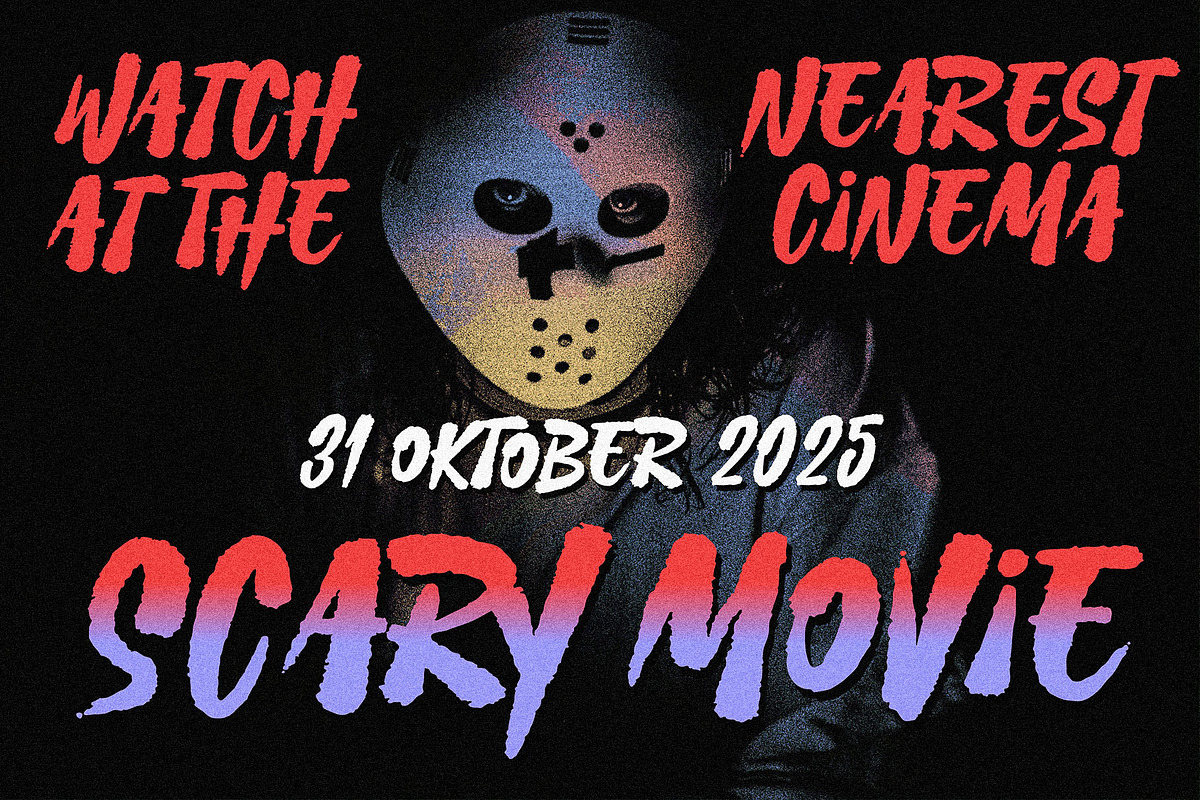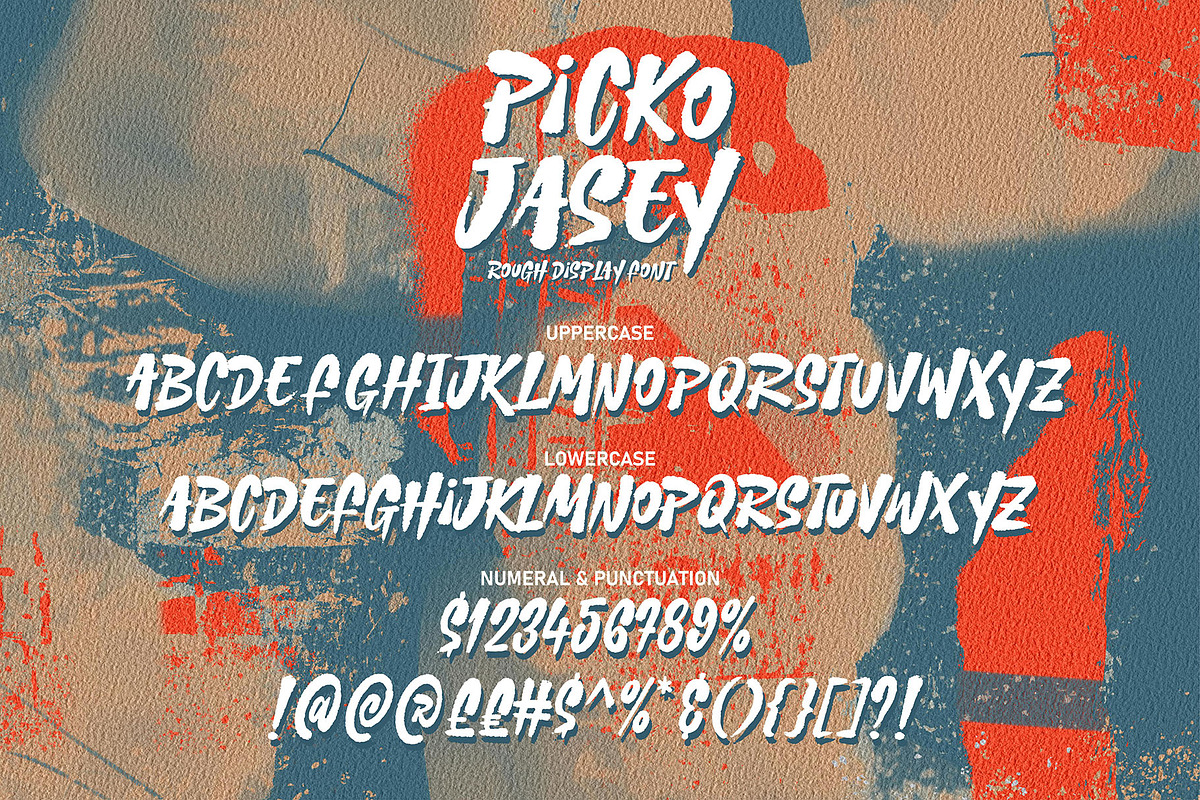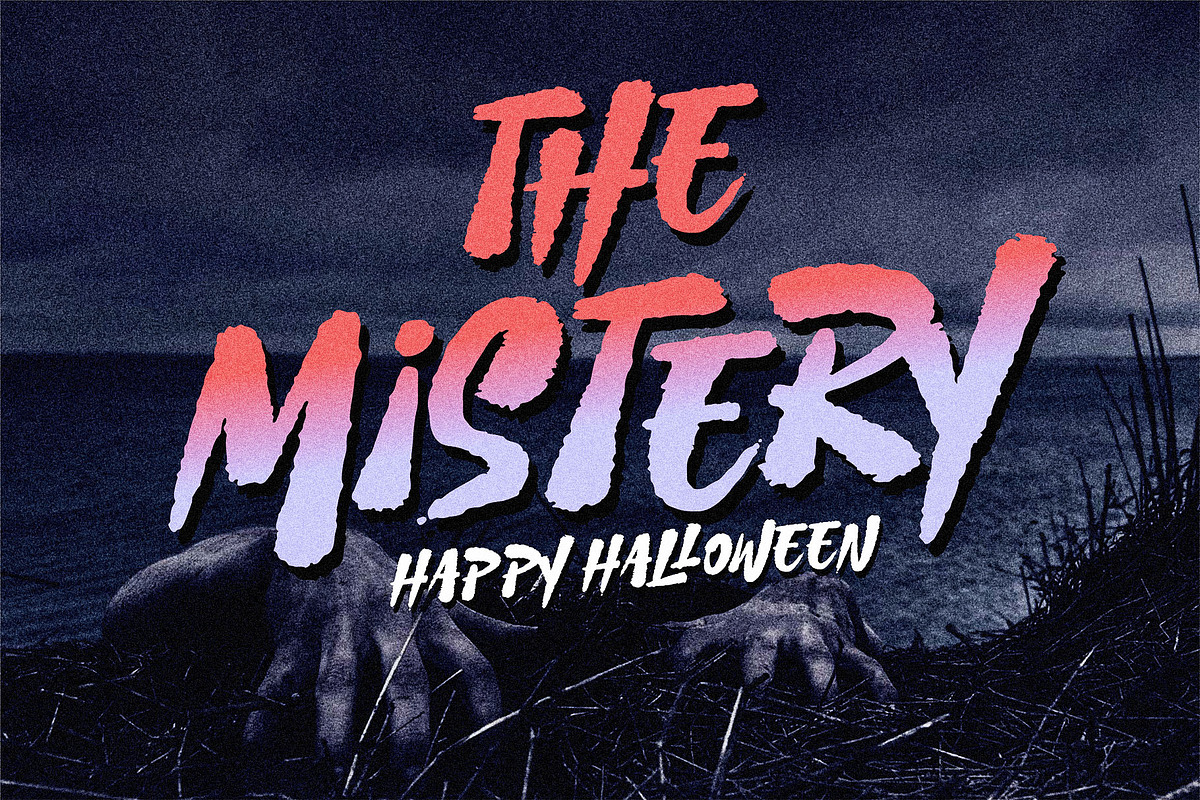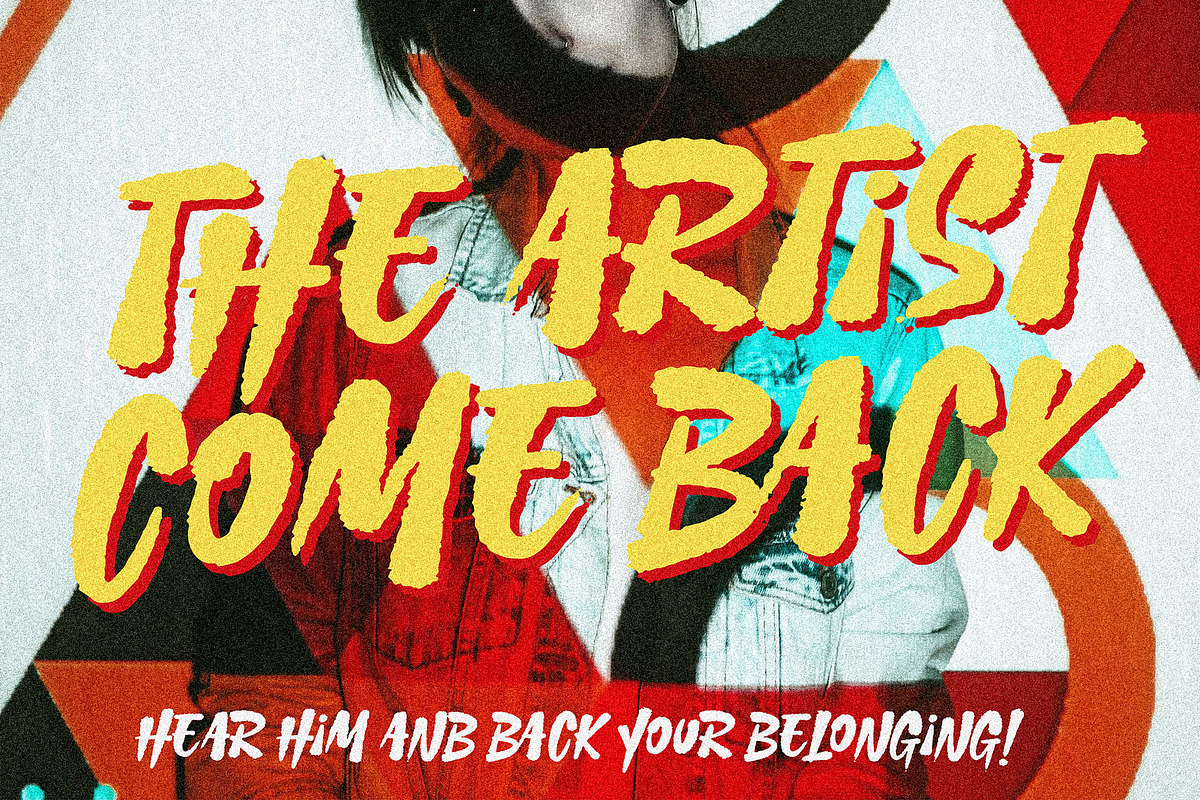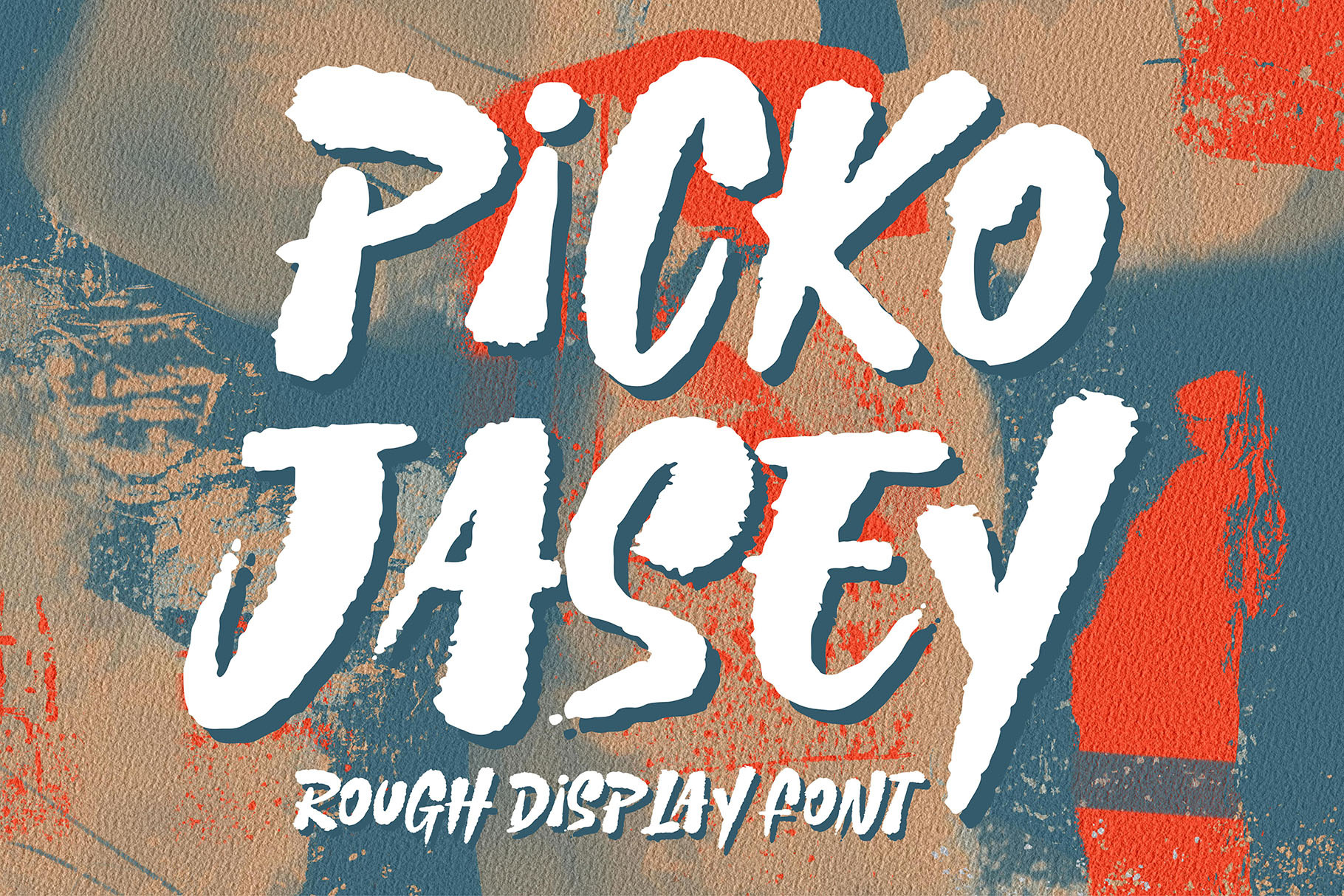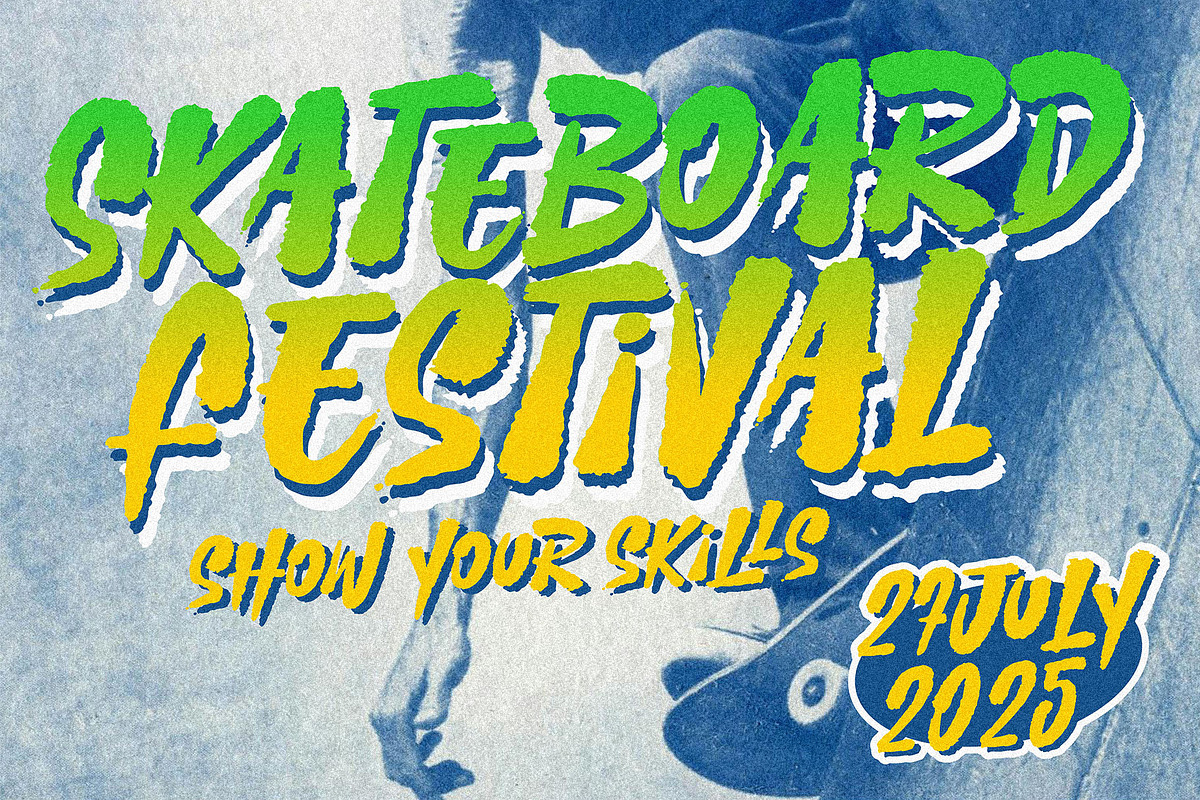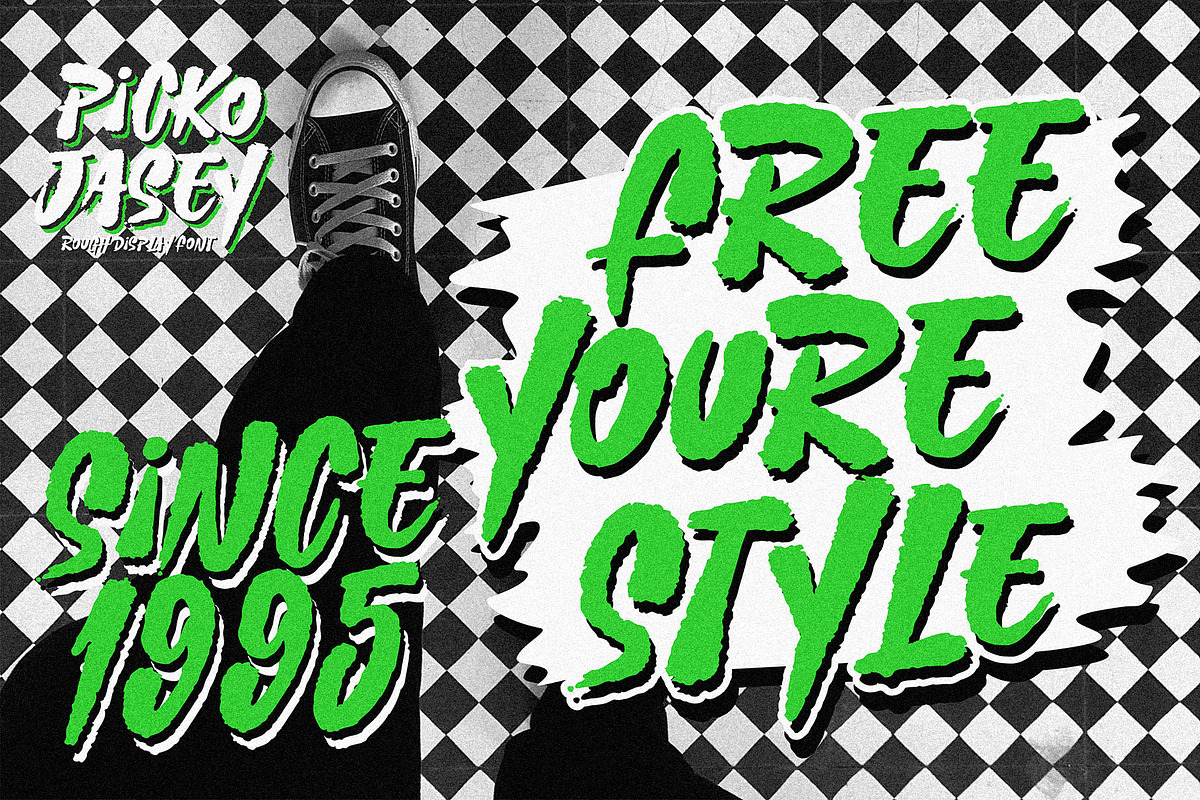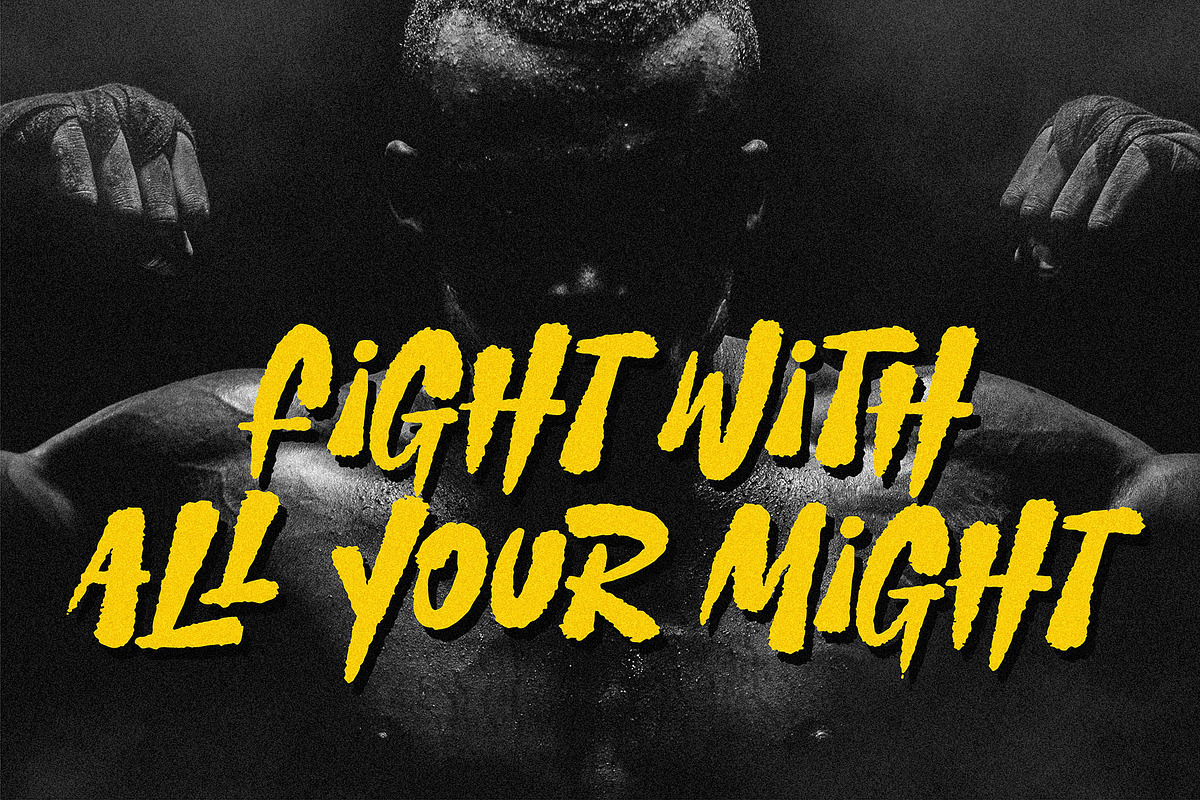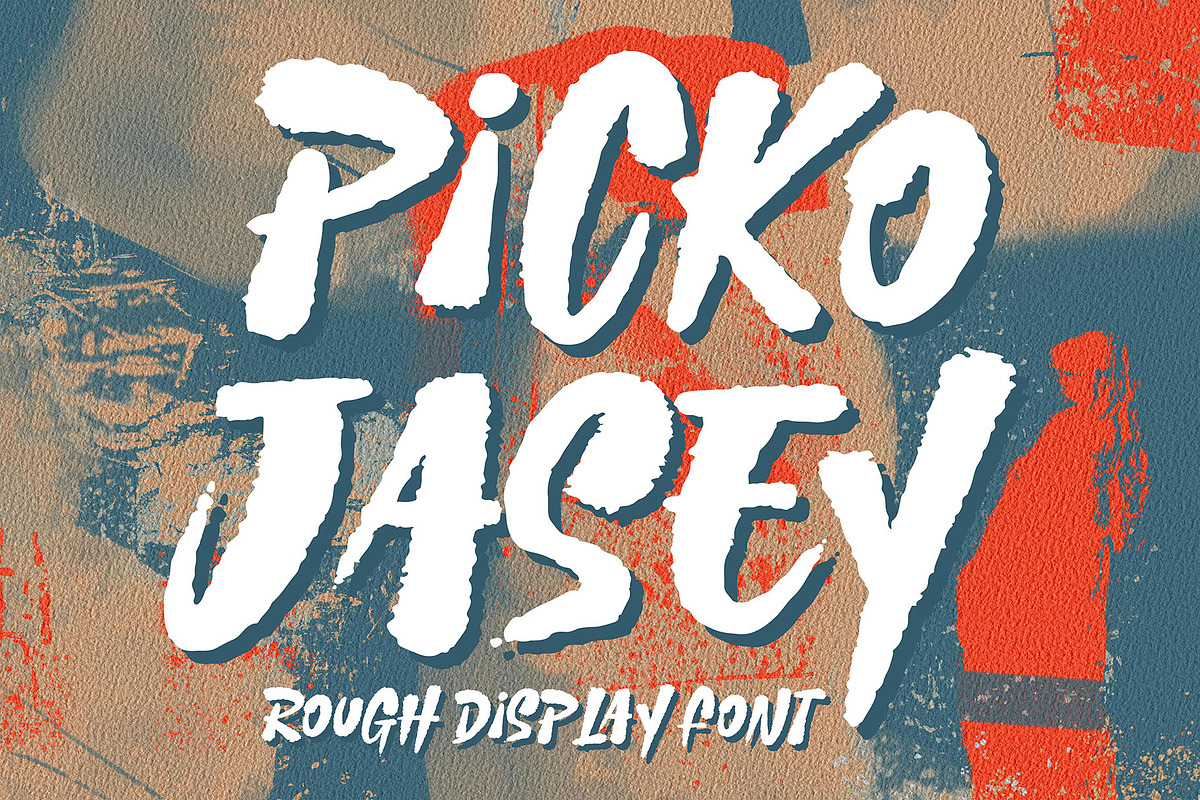
Picko Jasey - Rough Brush Font
Picko Jasey – Rough Brush Font, modern style and dramatic movement that is written casually and quickly. The best for labels, poster, project designs look modern, authentic and fun.
The best for labels, poster, project designs look modern, authentic and fun. Perfect for a wide range of applications, from crafting eye-catching headings and dynamic logotypes to bringing energy to quotes, logo, apparel, invitations, flyers, greeting cards, product packaging, book covers, and printed quotes.